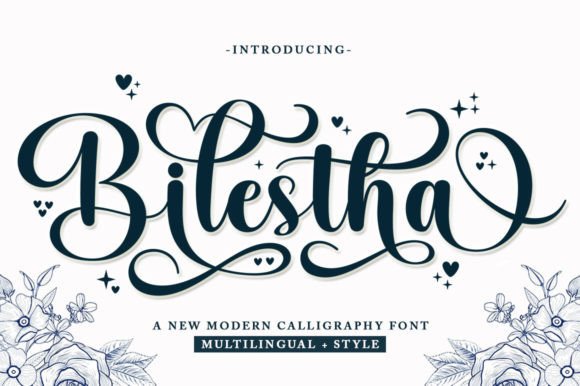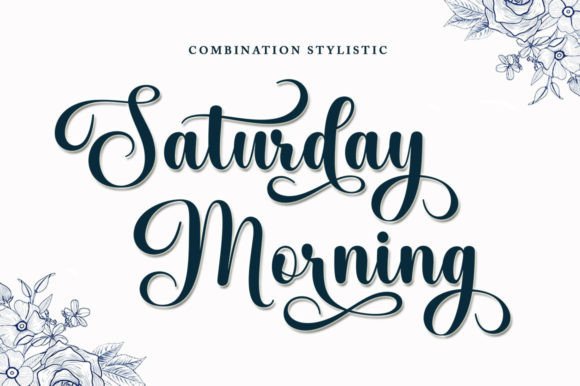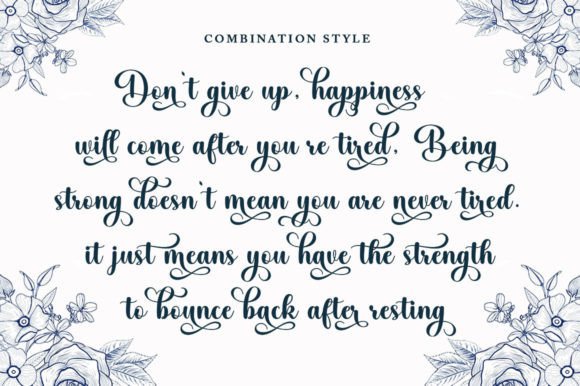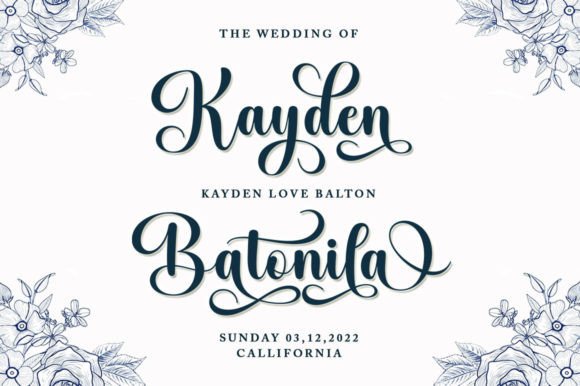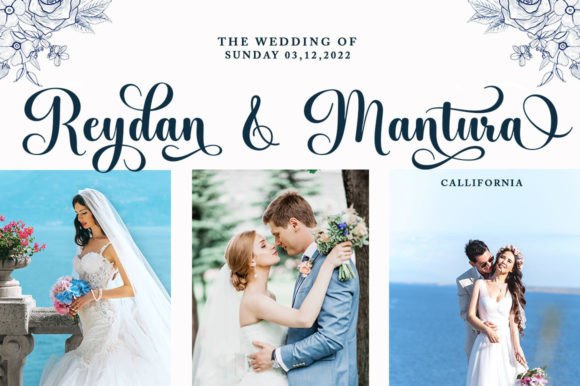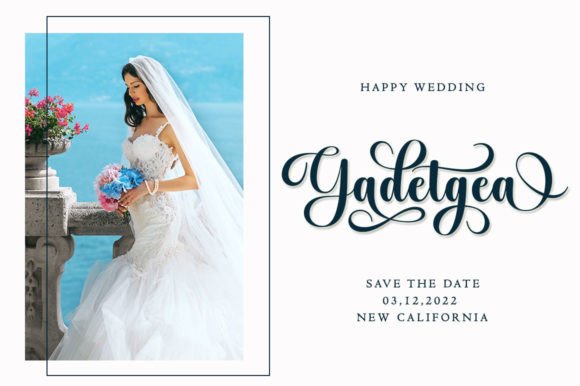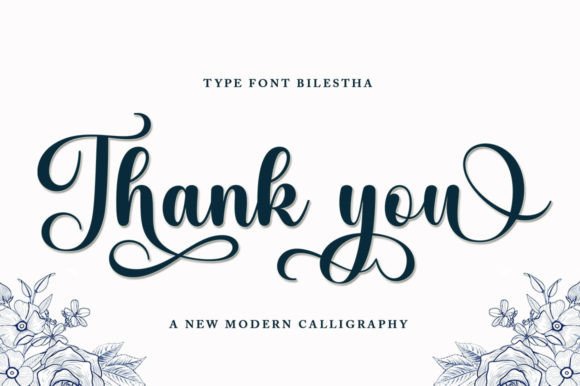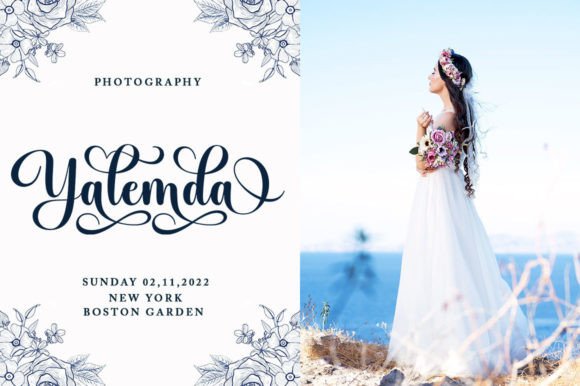
Bilestha Font
About Bilestha Font
The Bilestha font is a refined modern script that brings together elegance, simplicity, and timeless charm. With its clean lines and graceful flow, this handwritten typeface captures the look and feel of luxury. It’s perfectly suited for romantic, high-end, and formal design applications.
From wedding invitations to fashion branding, Bilestha adds a delicate, feminine touch while maintaining clarity and sophistication. It was created for designers who want to make a strong yet elegant impression.
Designed for Beauty and Readability
Bilestha stands out for its smooth connections, clean loops, and flowing forms. Each letter was carefully designed to offer both style and legibility. The font features a natural script rhythm that feels effortless and refined.
Despite its ornate appearance, the Bilestha font is easy to read. Its proportional spacing and sleek letterforms make it suitable for both headlines and short text blocks. Whether you’re working on digital projects or printed materials, this font offers a luxurious finish.
Thanks to its many graceful ligatures and stylish swashes, it can enhance the beauty of names, titles, or product labels with minimal effort.
Ideal for Elegant and Formal Projects
Bilestha is more than just beautiful—it’s also highly versatile. It can be confidently used in:
• Wedding invitations and event stationery
• Beauty, fashion, and makeup branding
• Elegant product packaging and perfume labels
• Logos, menus, and boutique signage
• Magazines, book titles, and blog headers
• Greeting cards and romantic quote designs
Its soft elegance is perfect for designs where emotion, beauty, and subtlety are essential. The flowing connections between letters help give your typography a handwritten authenticity while staying polished.
Add Feminine Luxury to Your Designs
If you want to elevate your creative work with a touch of glamour, the Bilestha font is the perfect choice. It’s simple yet elegant, soft yet strong, and ideal for conveying beauty, romance, and sophistication in your typography.